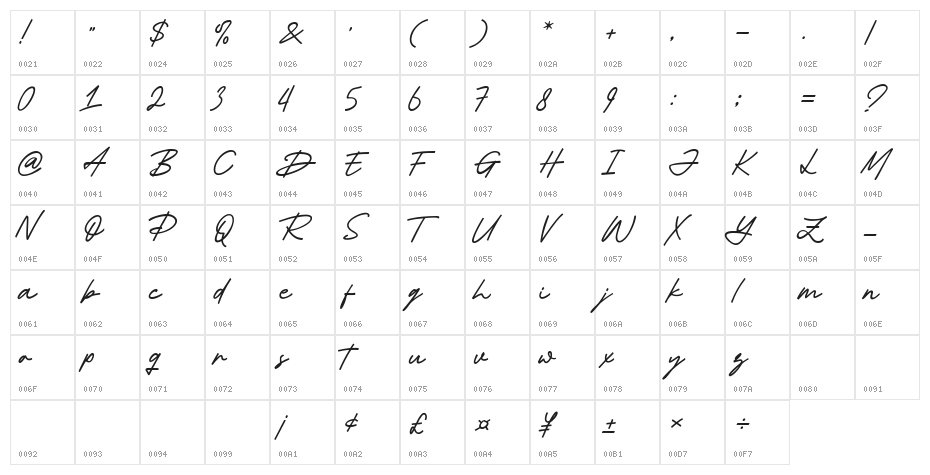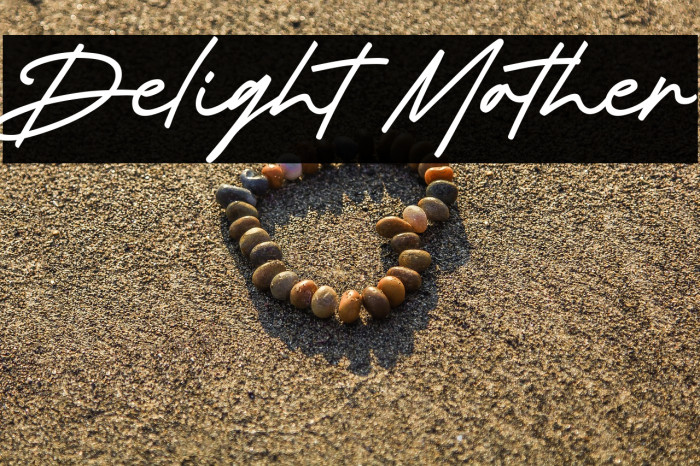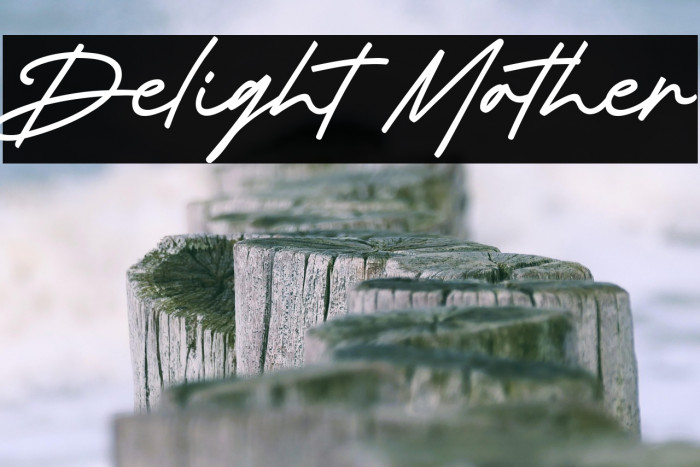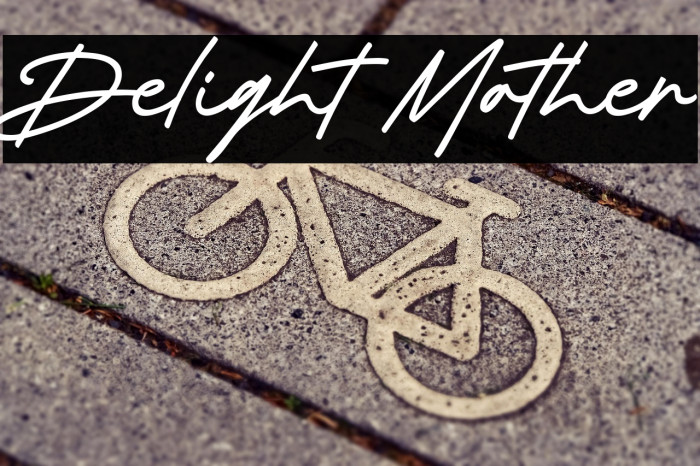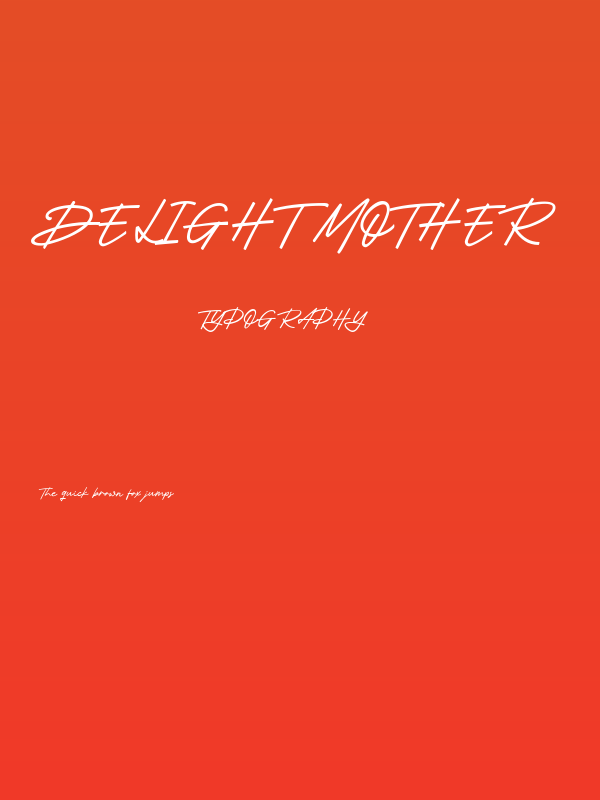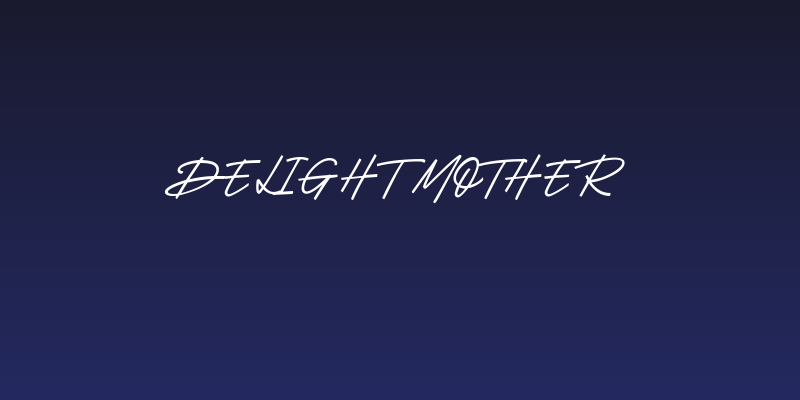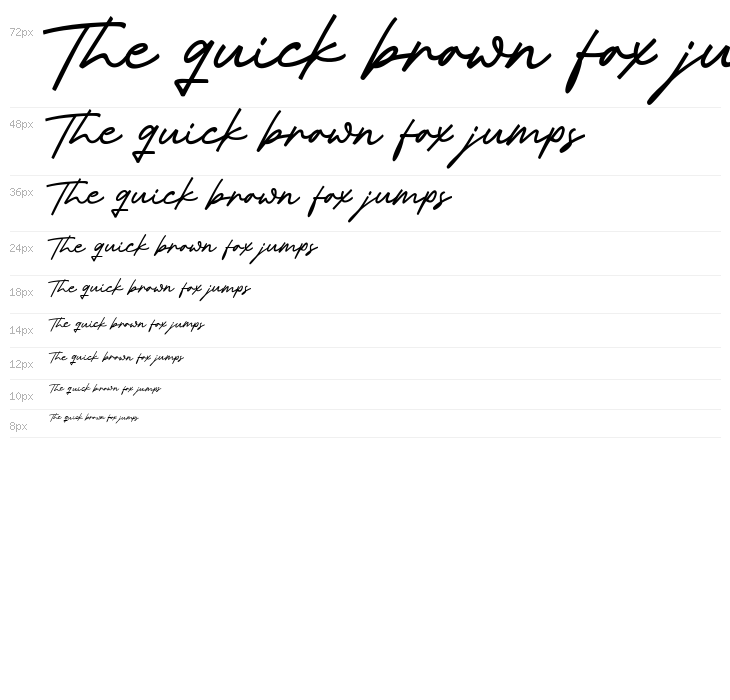
Delight Mother Font
Delight Mother Description
This font exudes a lively and dynamic handwritten style, characterized by its fluid and connected strokes. The letters are elegantly slanted, giving a sense of motion and grace. The uppercase letters are bold and prominent, while the lowercase letters maintain a consistent flow that mimics natural handwriting. Numbers and special characters are seamlessly integrated, maintaining the font's cohesive appearance. The overall design is both stylish and legible, making it suitable for a variety of creative applications.
| Use Case | Logos, Invitations, Personal Branding |
| Proposed Projects | Ideal for personal branding, invitations, greeting cards, and creative projects that require a personal touch. |